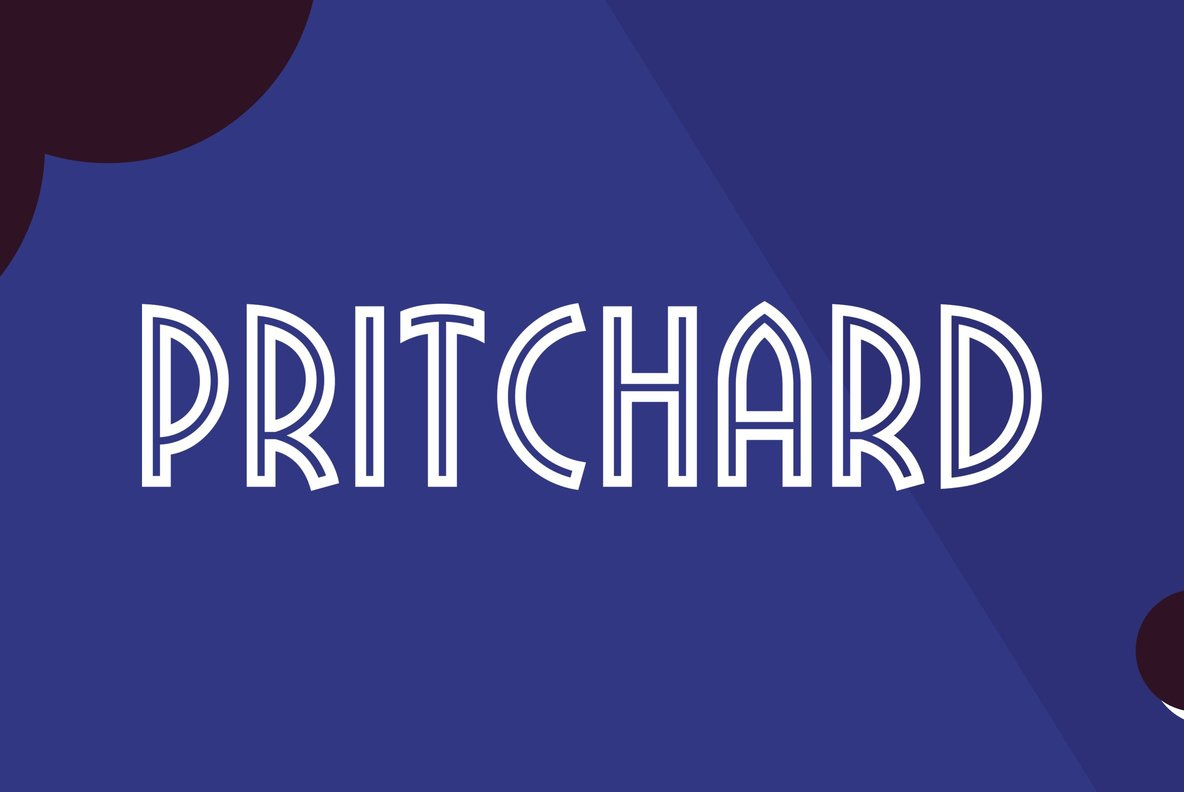
Pritchard Font
Pritchard Font is perfect for distinguished professional branding, established law firm identities, traditional financial services, heritage institution communications, academic publishing, formal corporate documentation, distinguished gentleman's clubs, and prestigious advertising campaigns. This dignified typeface works magnificently in both digital applications and print media where professional distinction and established authority are fundamental design requirements.
What makes Pritchard Font so exciting is its authoritative interpretation of British professional tradition through distinguished letterforms that seem crafted with the same meticulous attention to detail and institutional gravitas that defines the most respected professional establishments. The font features refined characters with distinguished proportions, traditional curves, and professional details that communicate competence, trustworthiness, and the established credibility that comes from generations of professional excellence. Its dignified personality and institutional heritage make it ideal for established professional practices seeking to reinforce their authoritative reputation while appealing to clients who value traditional professionalism and proven expertise.
The Pritchard Font family includes multiple weight variations with different authority levels, along with traditional alternates and professional ornamental elements. Each style maintains the typeface's distinguished character while offering comprehensive character sets including professional numerals, formal punctuation marks, and special symbols designed to enhance institutional communications and established branding efforts across various professional contexts.
The meticulously crafted professional details and optimized institutional performance in Pritchard Font ensure both traditional authenticity and clear communication across all professional applications. Its distinguished presence makes it perfect for institutional branding, professional marketing materials, and authoritative communications where its full professional character can create lasting confidence and establish immediate association with expertise, tradition, and the uncompromising standards of professional excellence that define truly distinguished institutions.